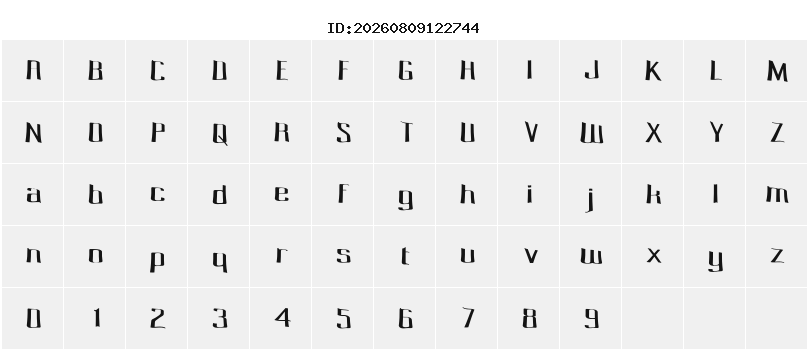
About Pecot Spacewarp.ttf
Pecot Spacewarp.ttf is a modern, elegant sans-serif font designed for ultimate readability and visual harmony. Perfect for branding, headlines, web design, and print materials.